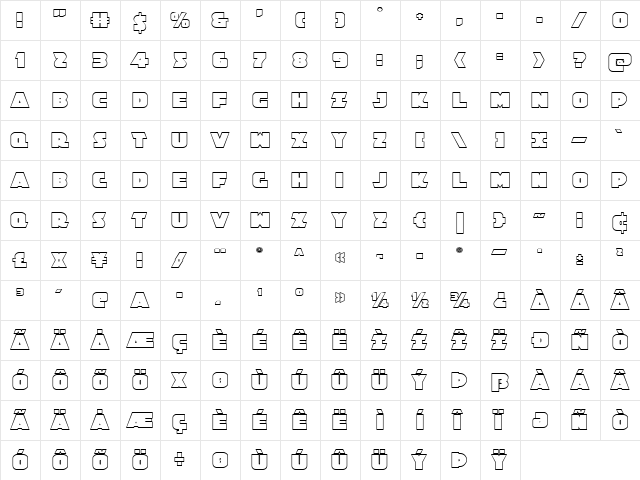
Jedi Special Forces Outline Regular
Design Context for Jedi Special Forces Outline Typeface
Jedi Special Forces Outline brings high-energy athletic personality to the page — its confident, muscular forms are built for impact.
Built for sports team identities, athletic apparel, event posters, and high-energy promotional material.
Pro Tip: Jedi Special Forces Outline thrives on contrast — try it large, bold, and tight against a clean background for maximum visual impact.